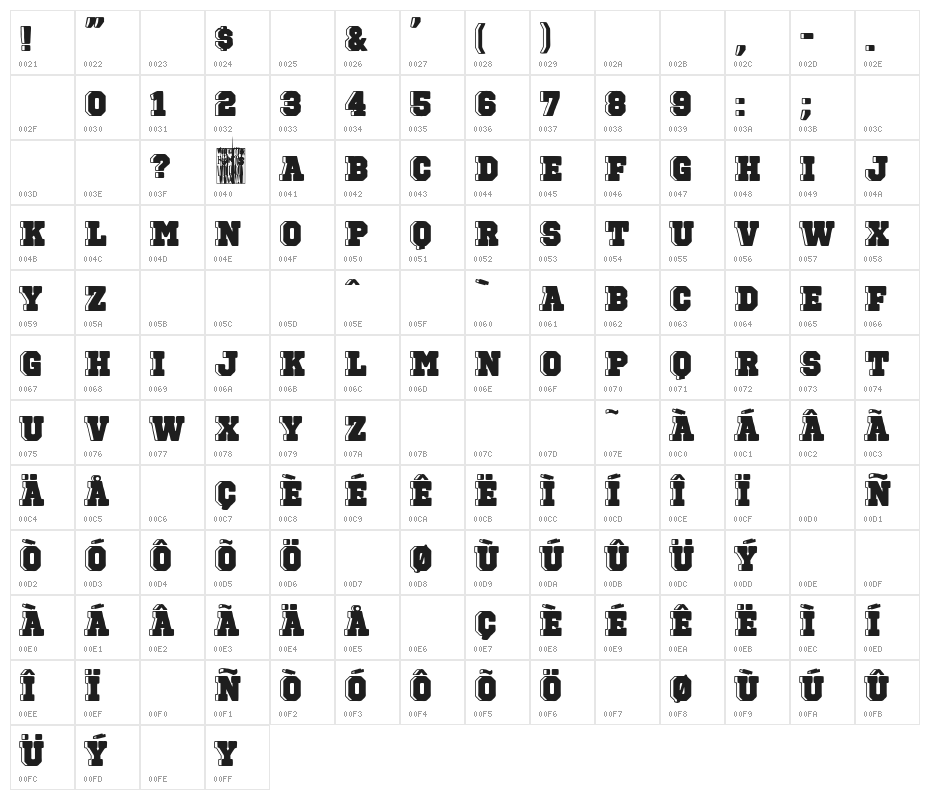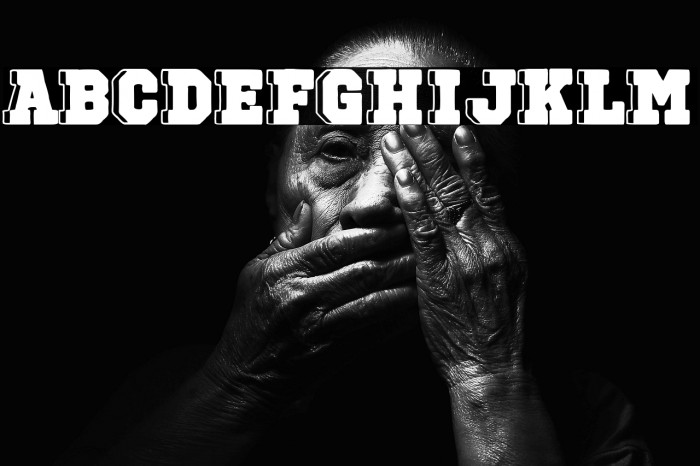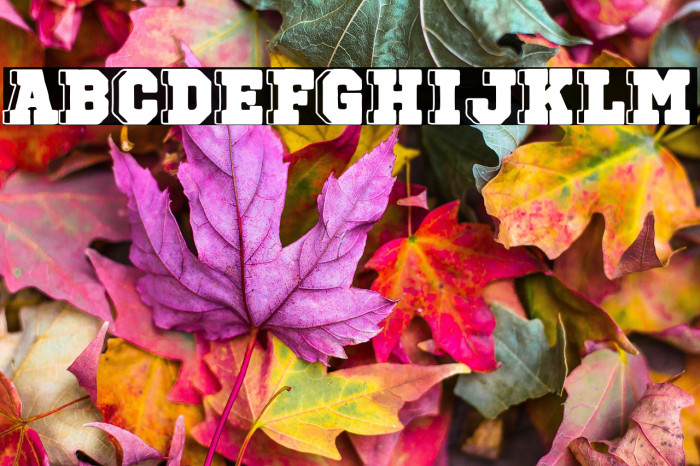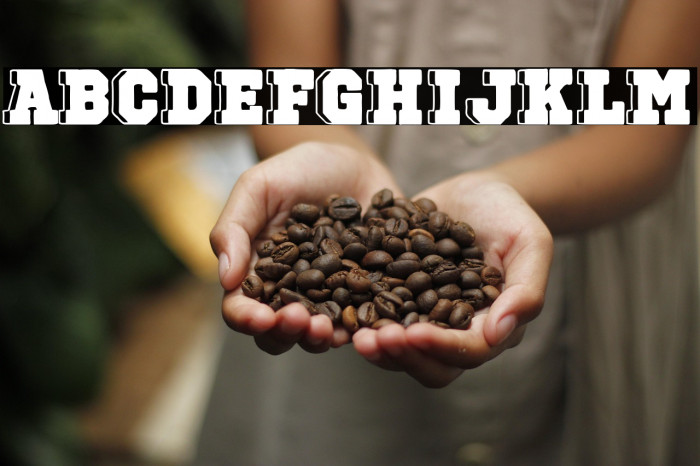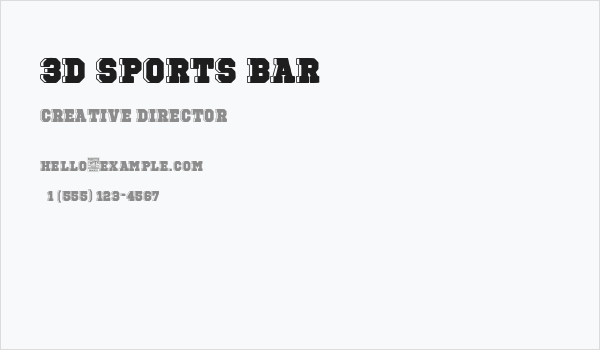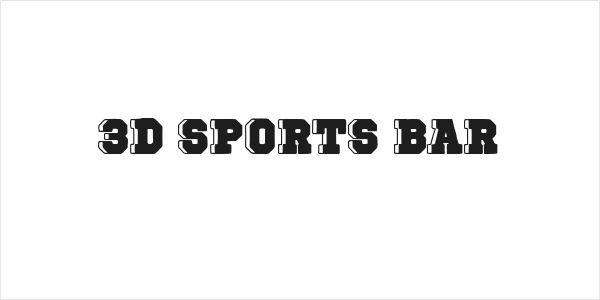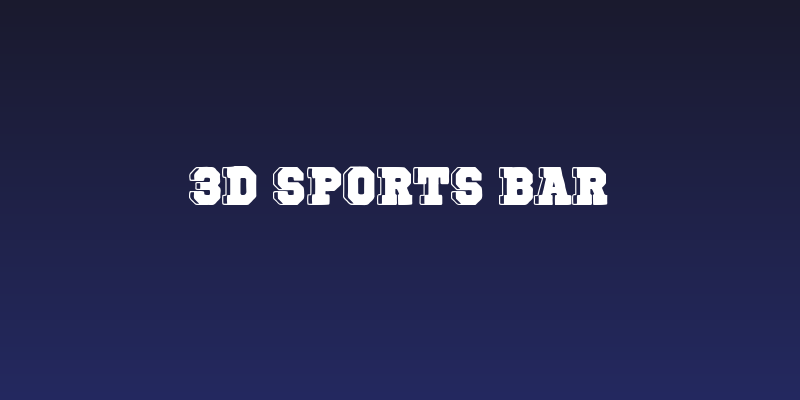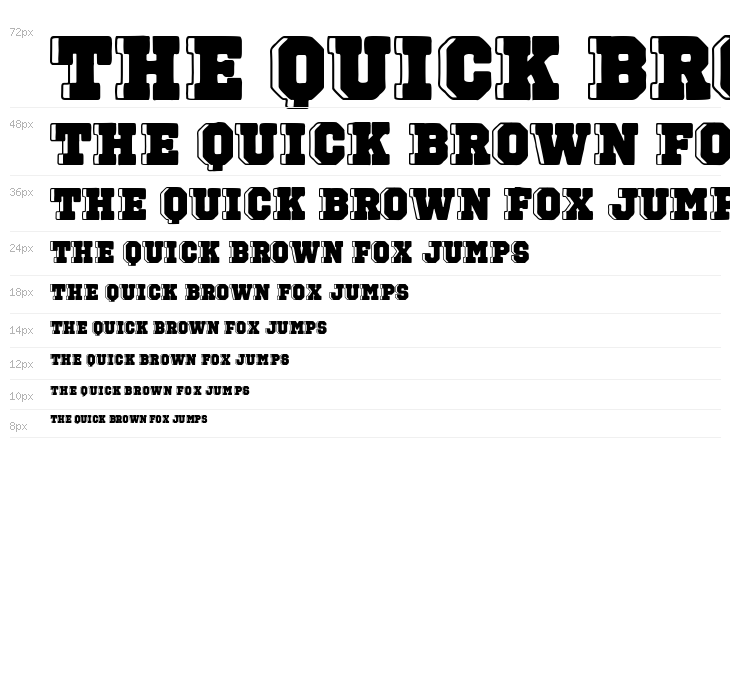
3D Sports Bar Font
3D Sports Bar Description
This bold and impactful font features a strong 3D effect, giving each character a sense of depth and dimension. The letters are capitalized and exhibit a blocky, robust style that is both eye-catching and assertive. The numbers and special characters maintain this bold aesthetic, ensuring consistency across all glyphs. The font's design is reminiscent of sports team logos or bar signage, with a playful yet commanding presence. Its thick strokes and shadowing create a sense of movement and energy, making it ideal for dynamic and attention-grabbing text. The character spacing is normal, allowing for clear readability while maintaining its bold appearance.